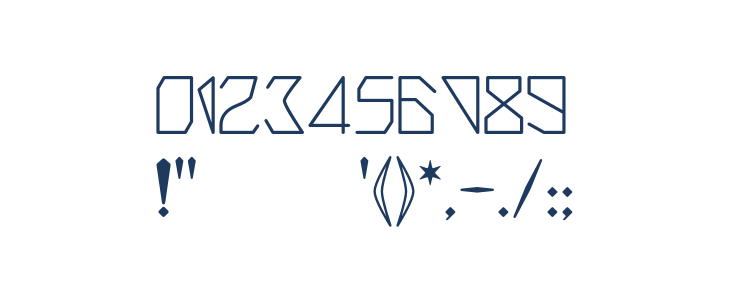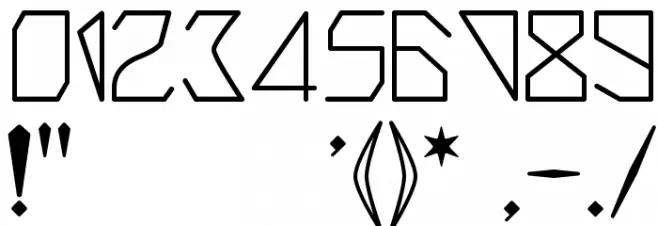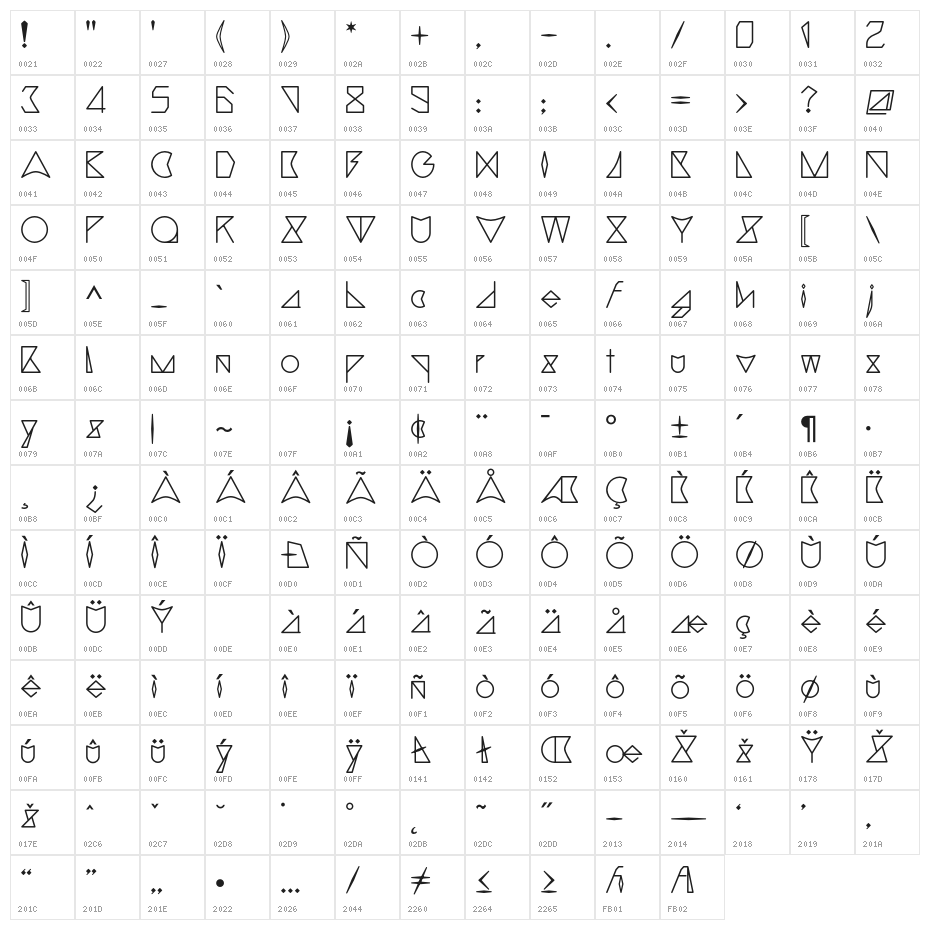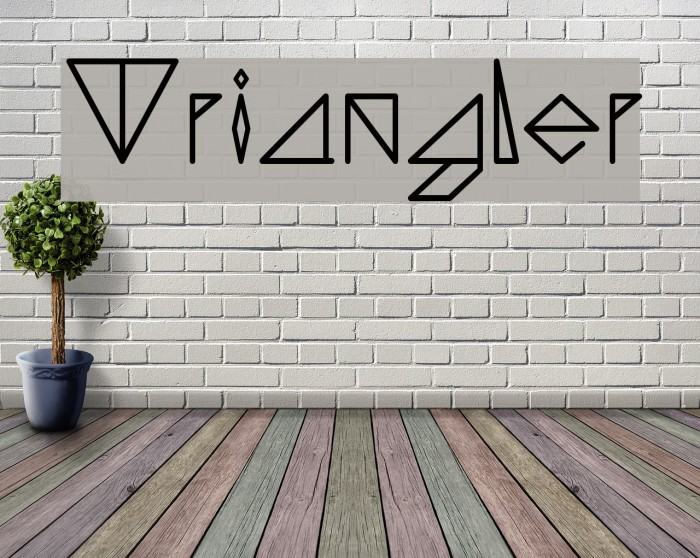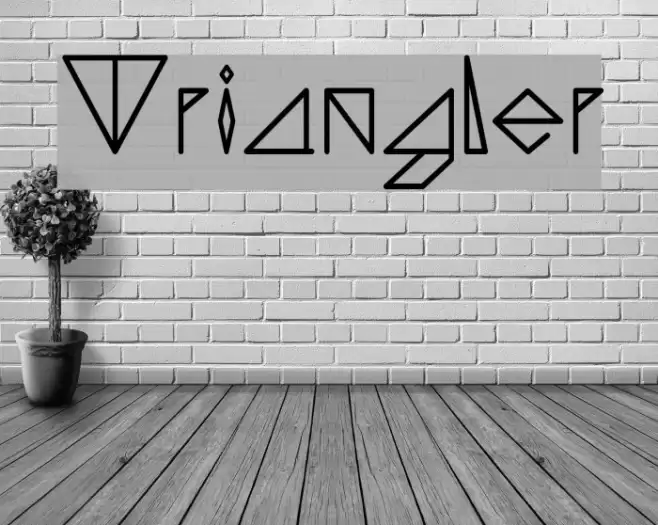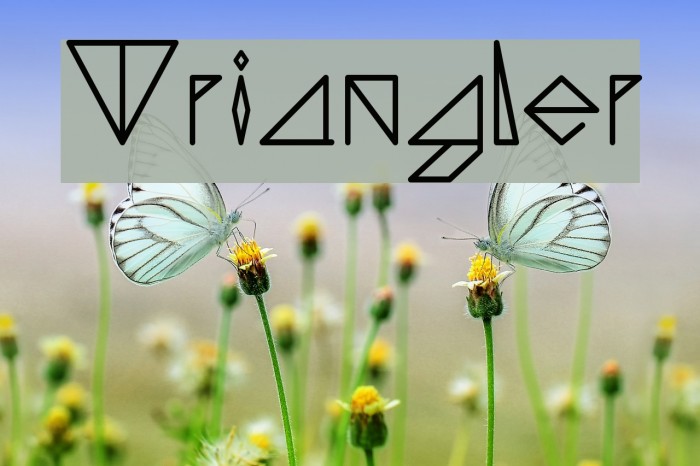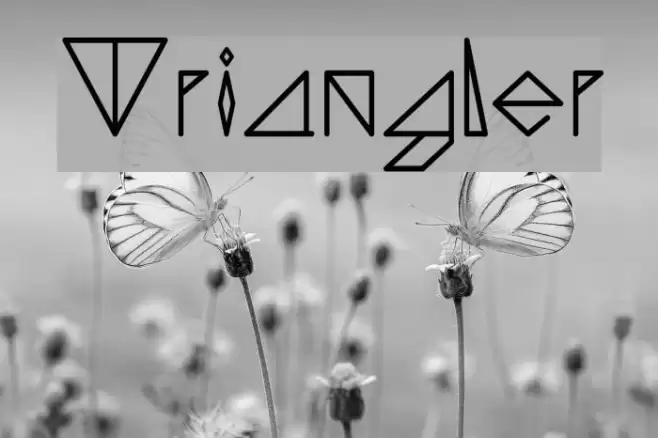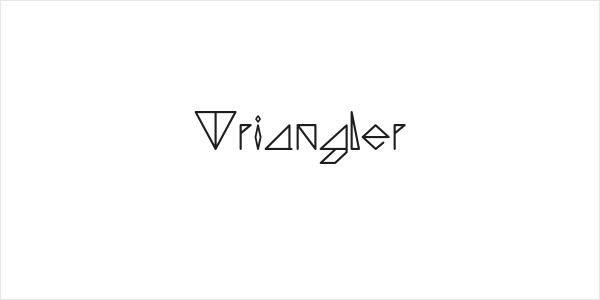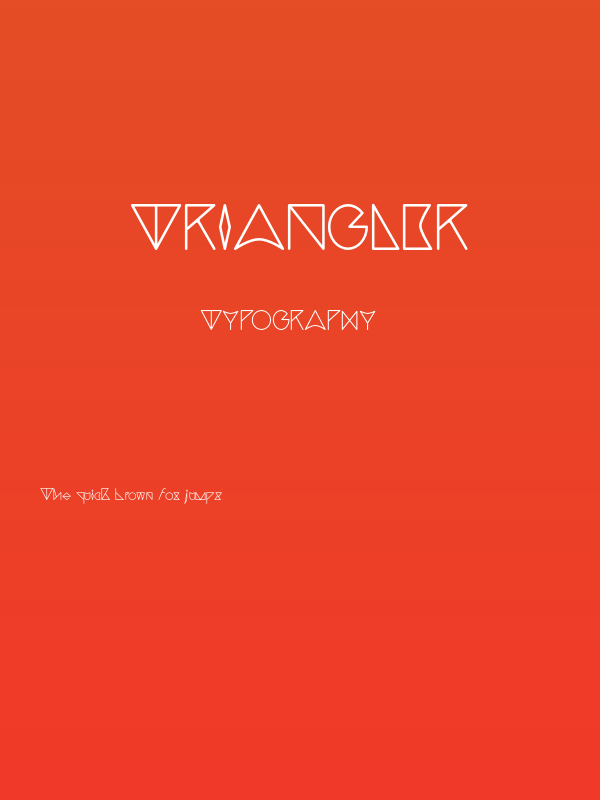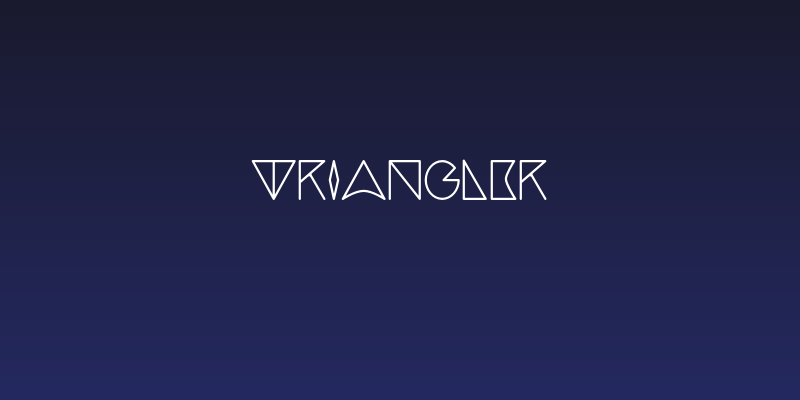
Triangler Font
Triangler Description
This font features a geometric and angular design, characterized by its sharp, triangular shapes and clean lines. The uppercase and lowercase letters maintain a consistent angular style, creating a cohesive and modern appearance. Numbers and special characters follow the same design principles, ensuring uniformity across all glyphs. The font's unique structure gives it a futuristic and avant-garde feel, making it stand out in any design project. Its distinct style is both eye-catching and versatile, suitable for a variety of creative applications.